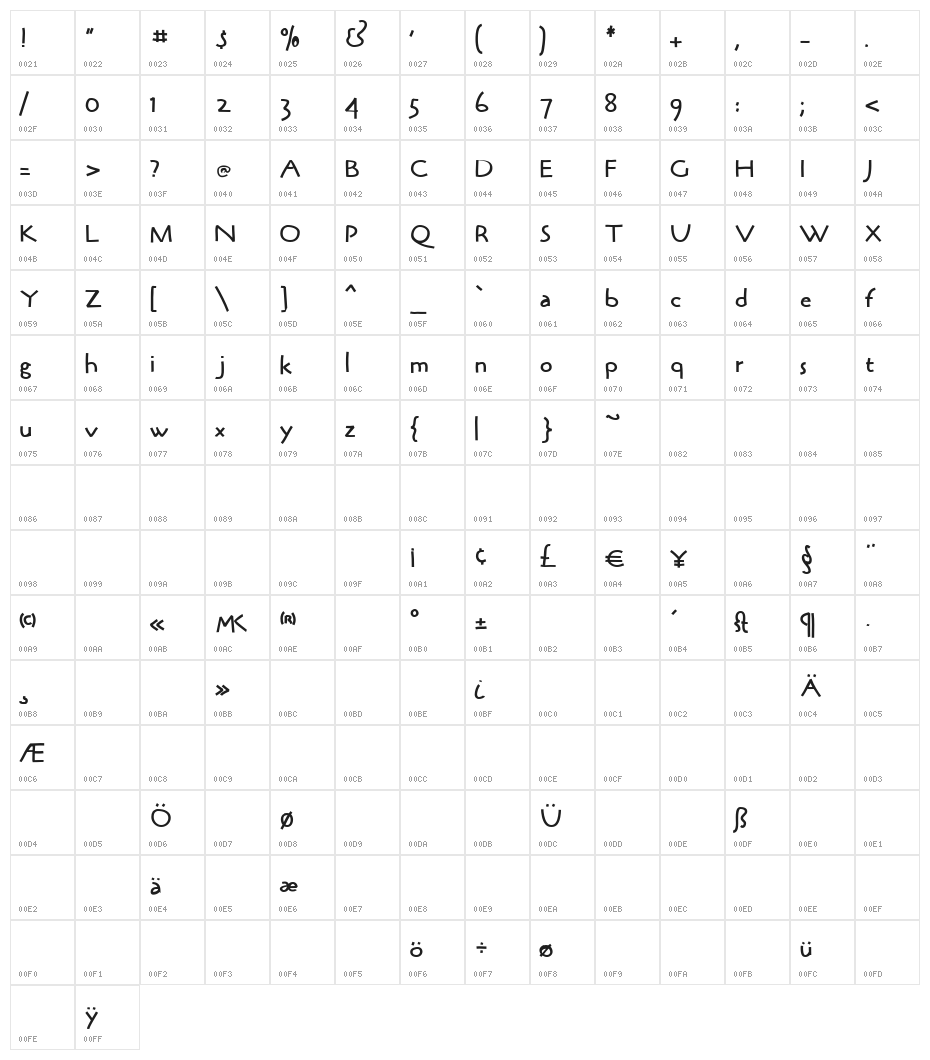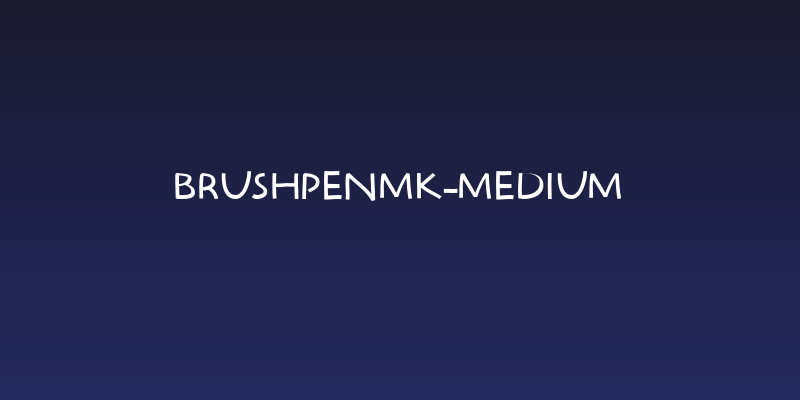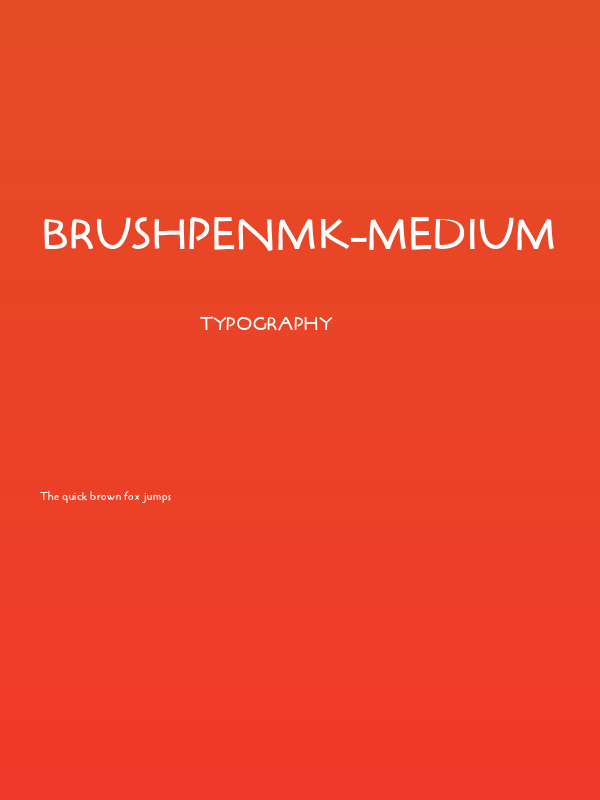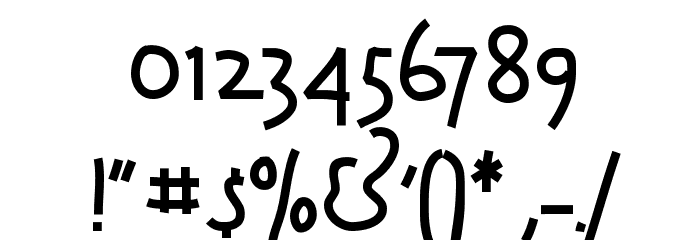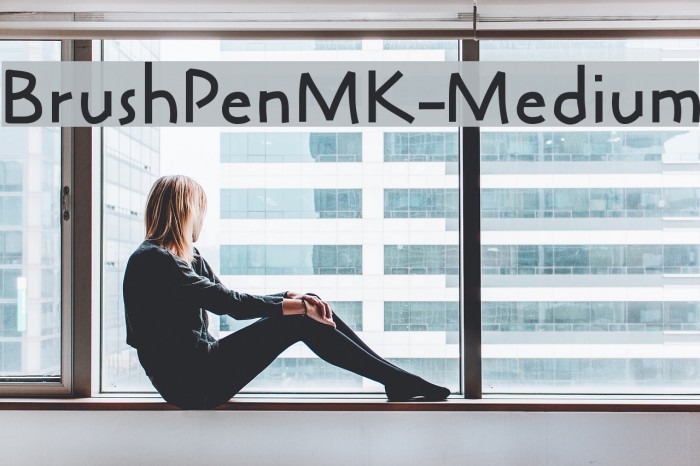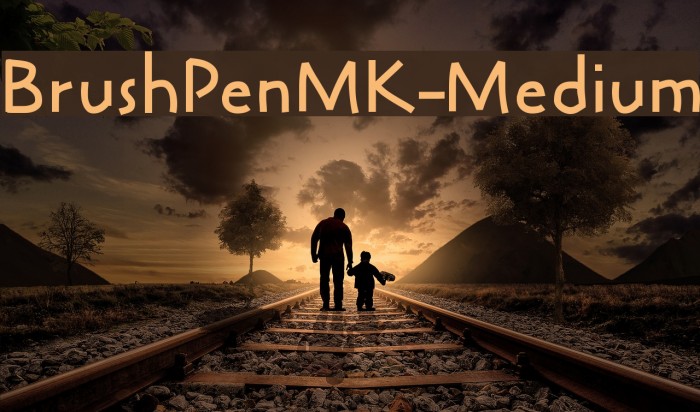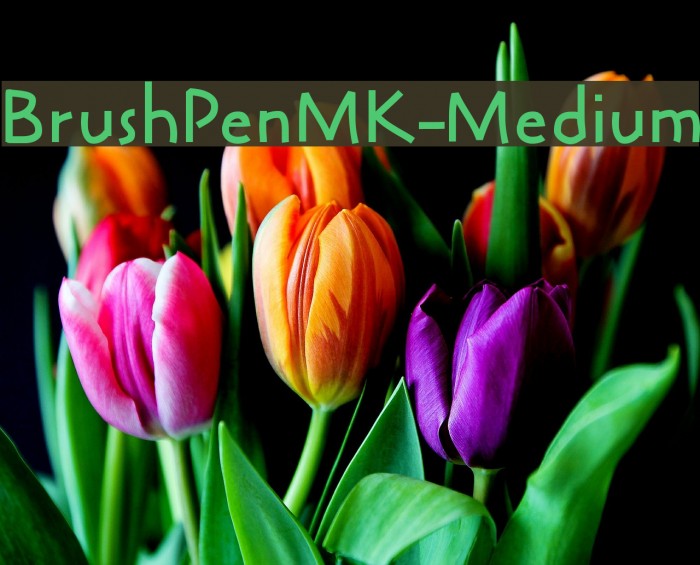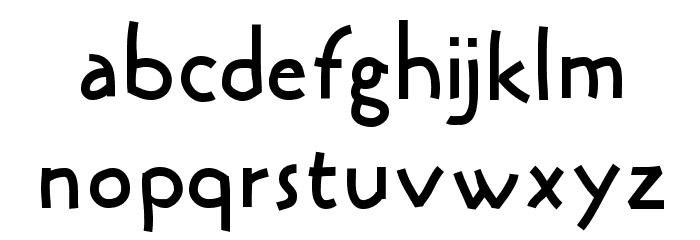
BrushPenMK-Medium Font
BrushPenMK-Medium Description
This font exhibits a playful and artistic style, reminiscent of hand-drawn brush strokes. The characters are slightly irregular, adding a whimsical and informal touch. The uppercase letters are bold and assertive, while the lowercase letters maintain a consistent flow with a touch of elegance. The numerals are distinct and easy to read, complementing the overall aesthetic. Special characters are creatively designed, enhancing the font's unique personality. This font is ideal for projects that require a creative and lively appearance.
| Proposed Projects | Ideal for creative projects such as greeting cards, posters, children's books, and branding materials that require a lively and artistic touch. |